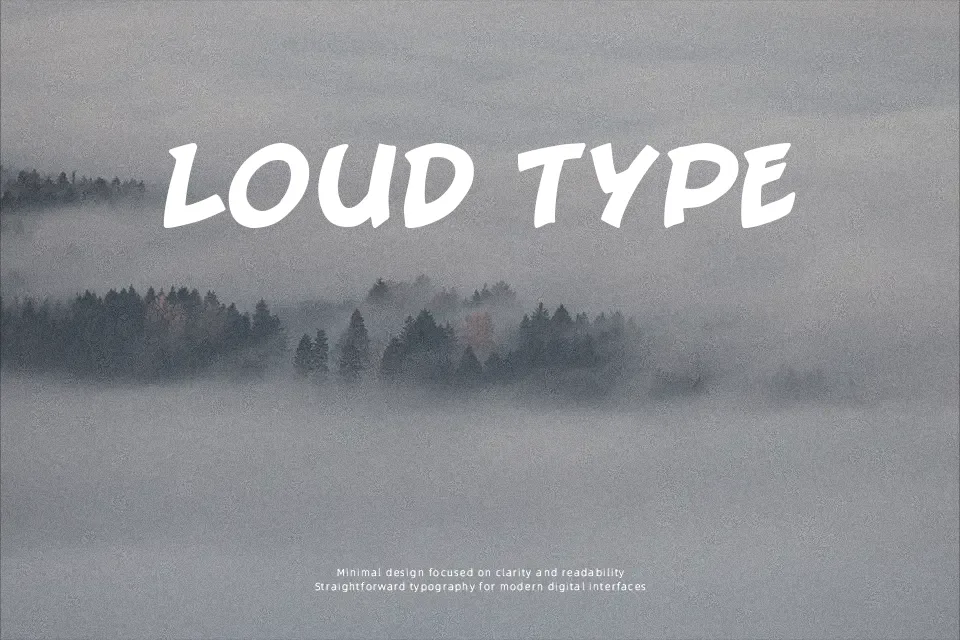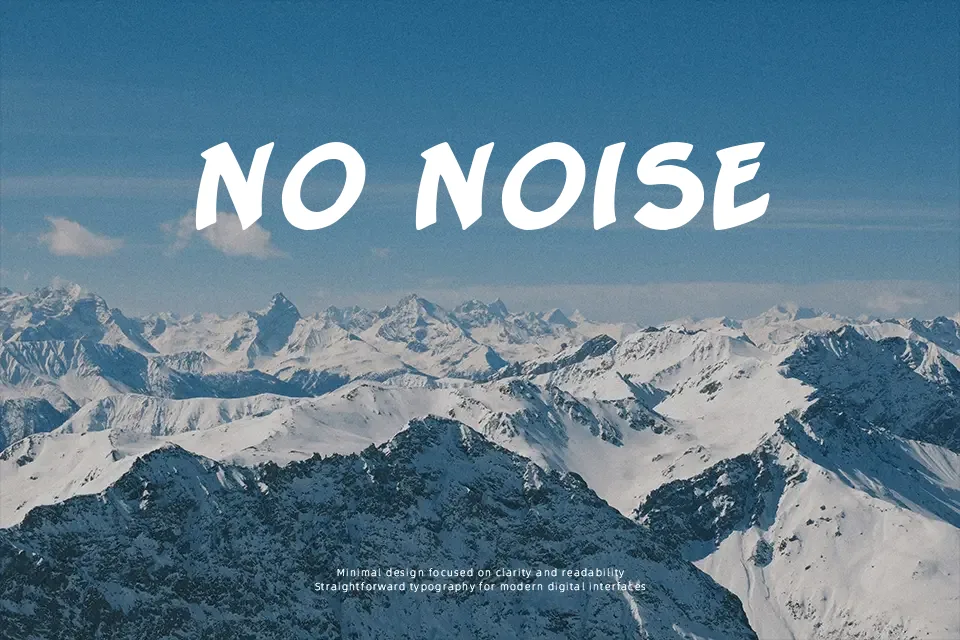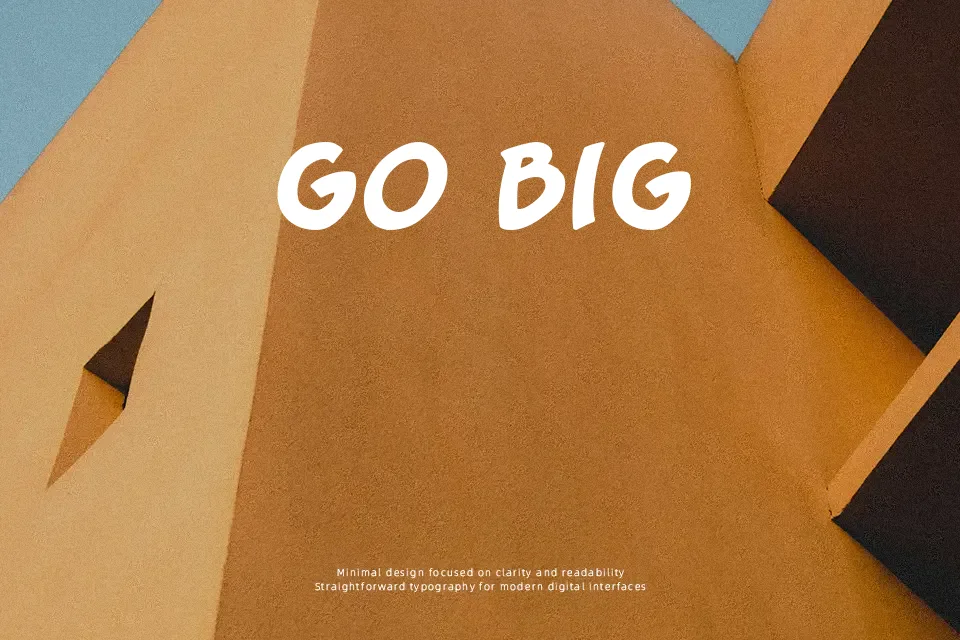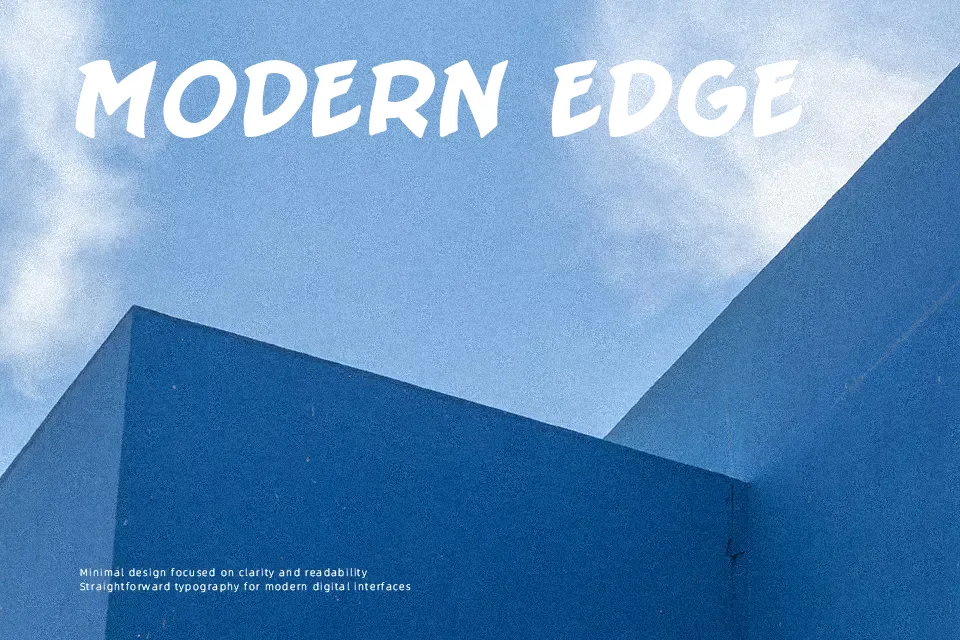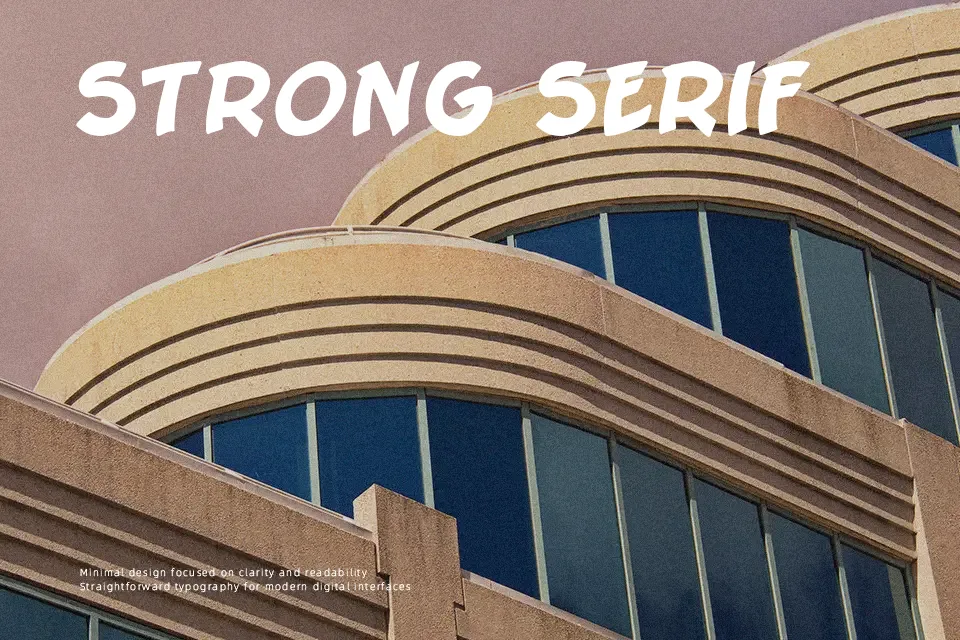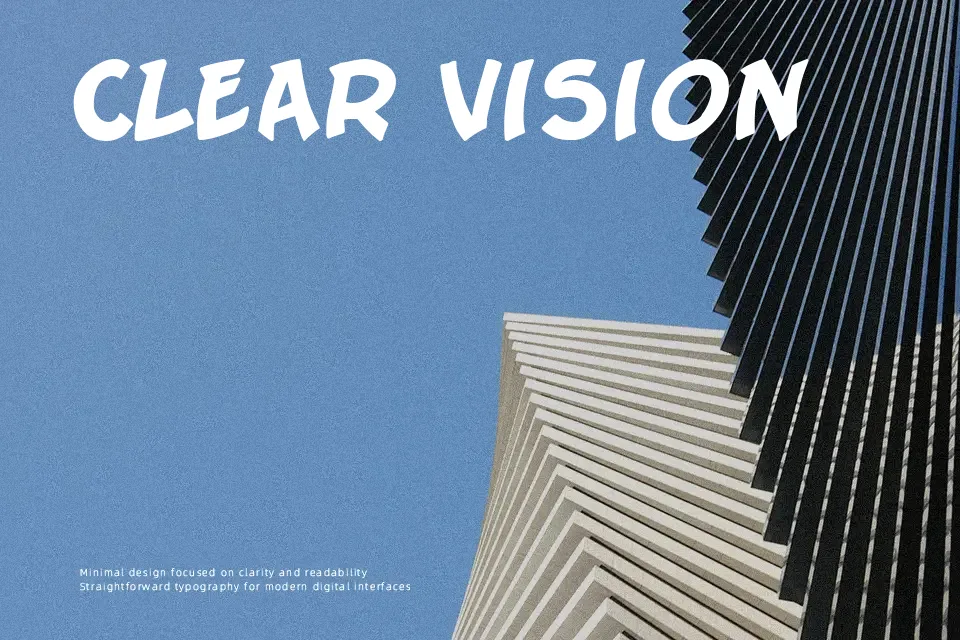
Sergeant Sixpack Font
Sergeant Sixpack Font features solid, heavyweight letterforms defined by thick outlines, angular stroke terminals, and compact internal counters. The design maintains relatively uniform widths across its uppercase glyphs, with moderately tight spacing that creates a cohesive block of text in short header sequences. Proportions emphasize horizontal weight, giving words an aggressive, animated stance that commands attention in splash pages, arcade graphics, and event flyers. However, the dense geometry significantly impairs readability at smaller point sizes. For dense paragraphs or multi-line body text, the heavy fills cause letterforms to merge into indistinct shapes, making the typeface strictly suitable for large-scale display applications.
Perfect for film, gaming, and headline, with a bold and comic style.